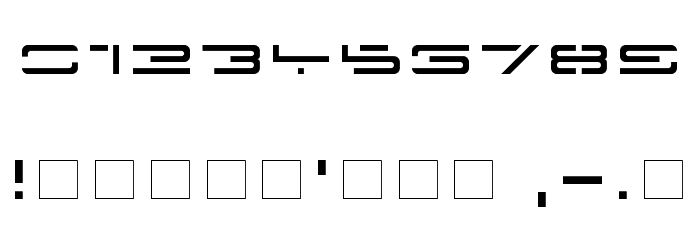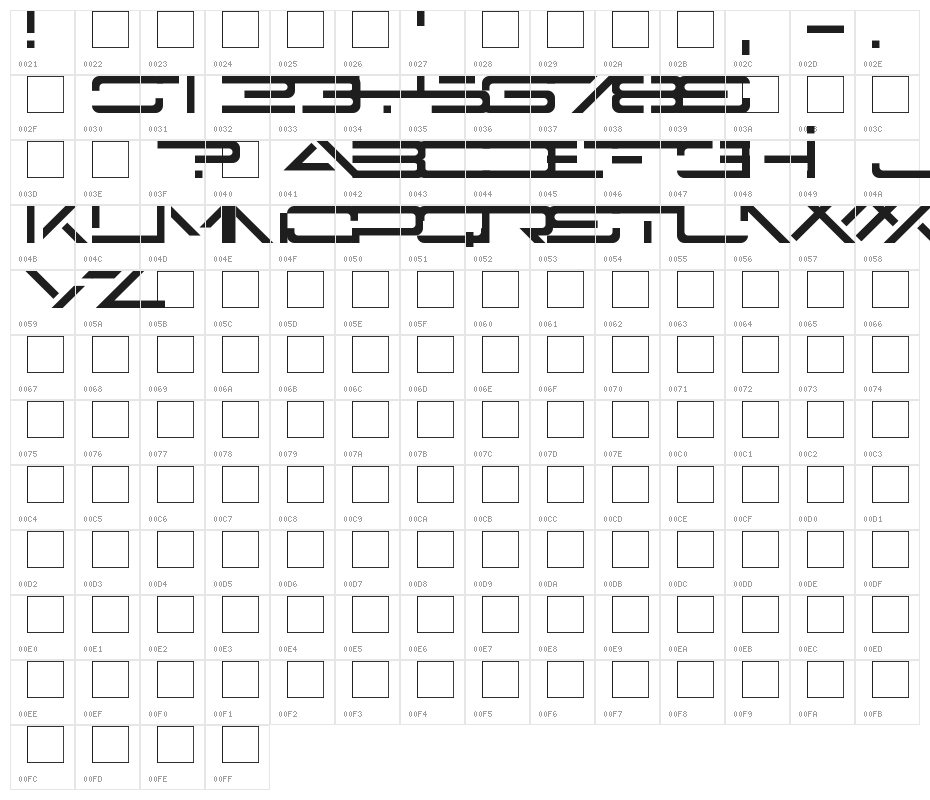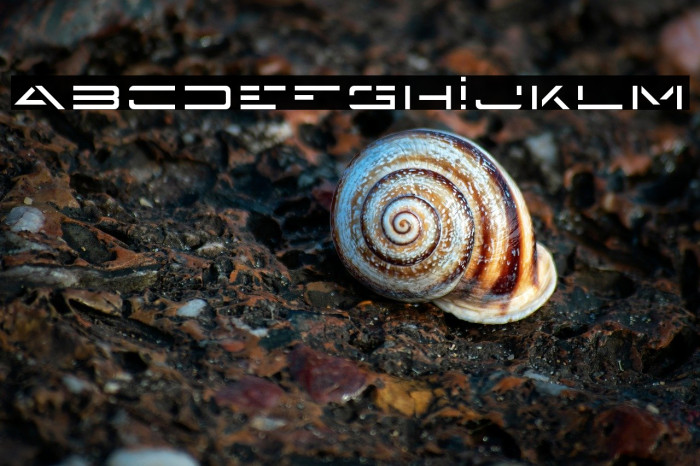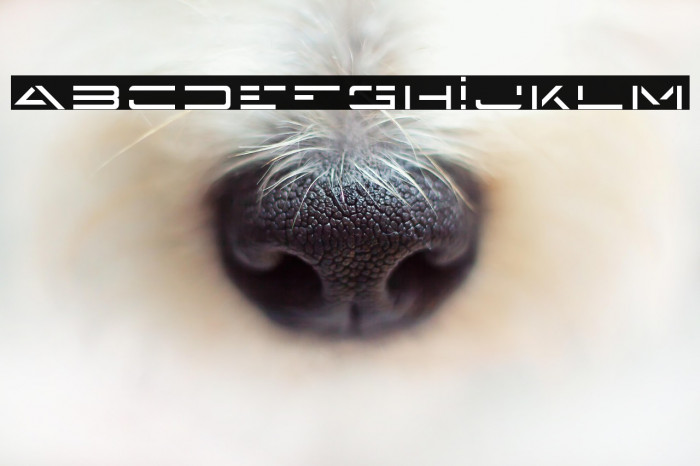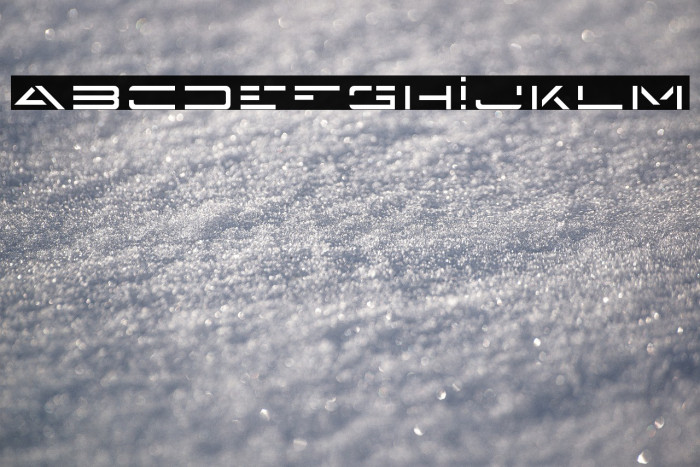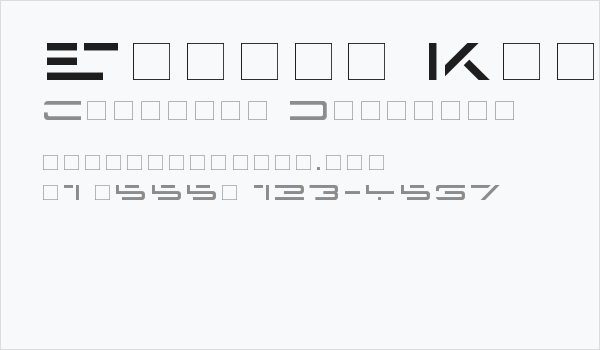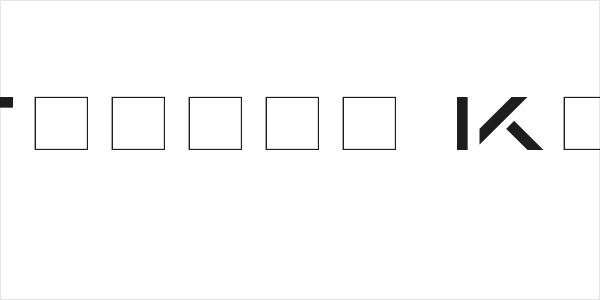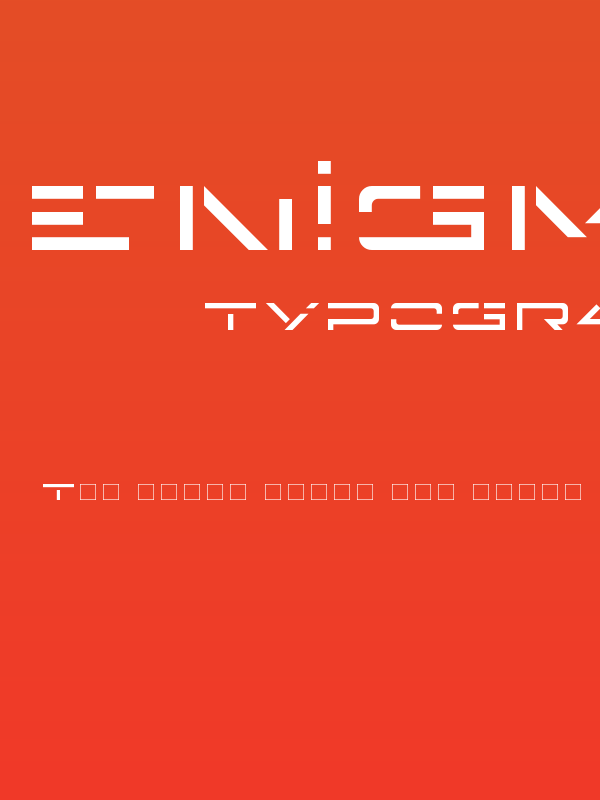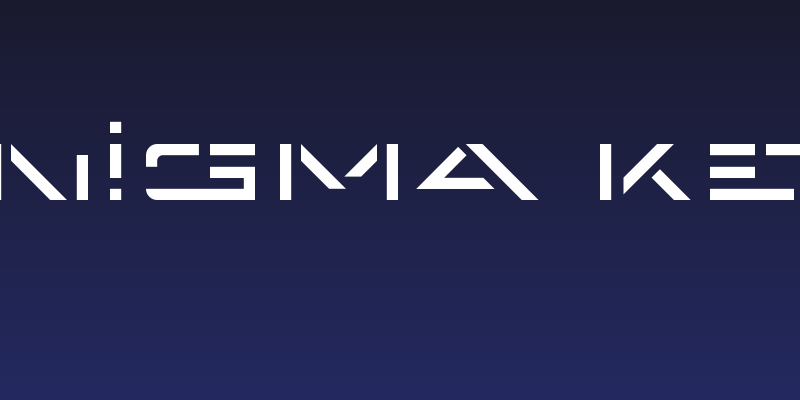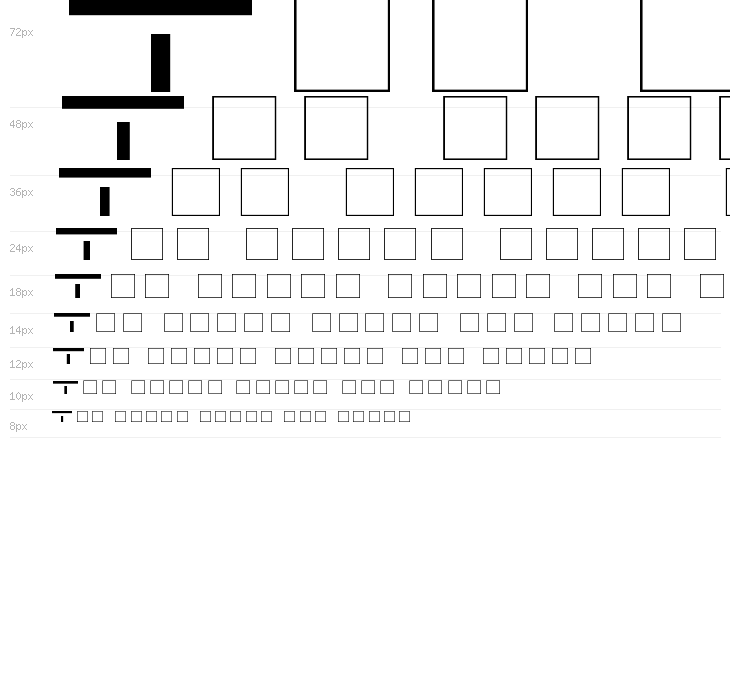
Enigma Key Font
Enigma Key Description
This font features a futuristic and geometric design, characterized by sharp angles and distinct cutouts within each character. The uppercase letters exhibit a unique blend of angular and curved elements, creating a sense of motion and modernity. The numerals follow a similar style, maintaining consistency across the character set. The font's design is highly stylized, making it suitable for projects that require a technological or avant-garde aesthetic. The spacing between characters is tight, enhancing the compact and sleek appearance of the text.
| Use Case | Logos, Headlines |
| Proposed Projects | Ideal for sci-fi movie posters, tech branding, video game titles, and futuristic event invitations. |